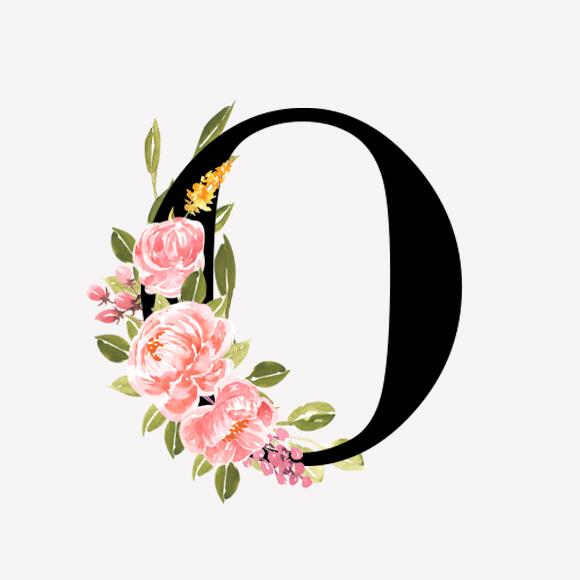
Analeigh Font Description
Analeigh is a magical display font carefully created with a touch of elegance. This is a beautiful combination of timeless elegance and authentic calligraphy. It features an incredibly classic style, while still keeping a friendly feel. Analeigh is the perfect font for making original and outstanding designs.